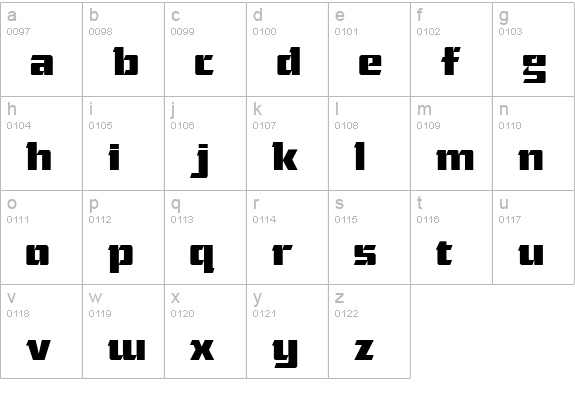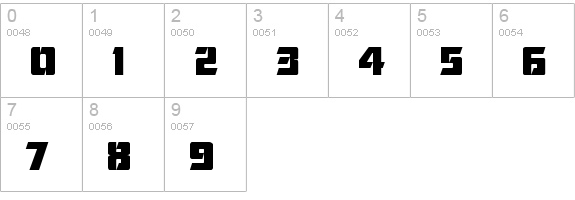
Chisel font is a bold and striking typeface that exudes strength and power. Its sharp edges and clean lines give it a modern and edgy look, making it perfect for projects that require a strong and impactful design. The chiseled appearance of this font adds a unique touch, making it stand out from the crowd. Best of all, Chisel font is available for free download at FontsMarket.com. This means you can easily access this eye-catching font and use it in your designs without any cost. Whether you're working on a poster, logo, or any other creative project, Chisel font is sure to make a bold statement and leave a lasting impression. Download it now and add a touch of strength and style to your designs!